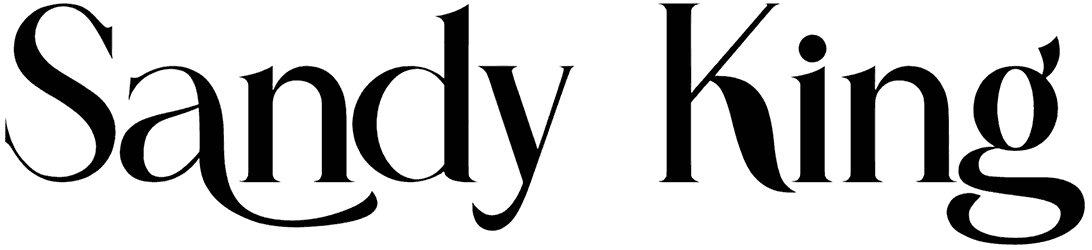
MADE Sunflower Font
Are you ready to offer you a formal and classical font to use in your body text? Stay with us to introduce the MADE Sunflower serif font that can work well for many of your next writing projects.
This font has emerged with a bold and edgy design that can give an established and reliable sense to your text. This luxury serif font is a perfect choice for writing your advertisements, fashion, quotes, magazines, posters, etc. Download it right now and enjoy!
MADE Sunflower is a modern serif typeface with old style elements.
MADE Sunflower will perfect for many project: fashion, magazines, logo, branding, photography, invitations, quotes, blog header, poster, advertisements, postcard, etc.
Designed by: MadeType